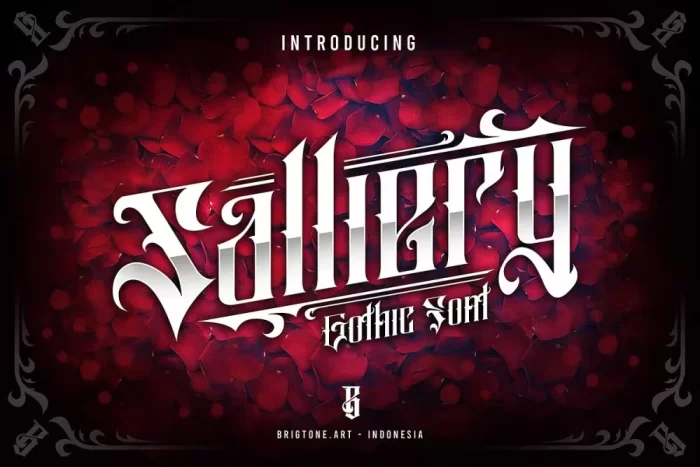
Salliery is blackletter tattoo font includes lowercase, uppercase, numeral, punctuation, and accented support. It is very nice for logo, branding, merchandise, apparel design, sticker, etc